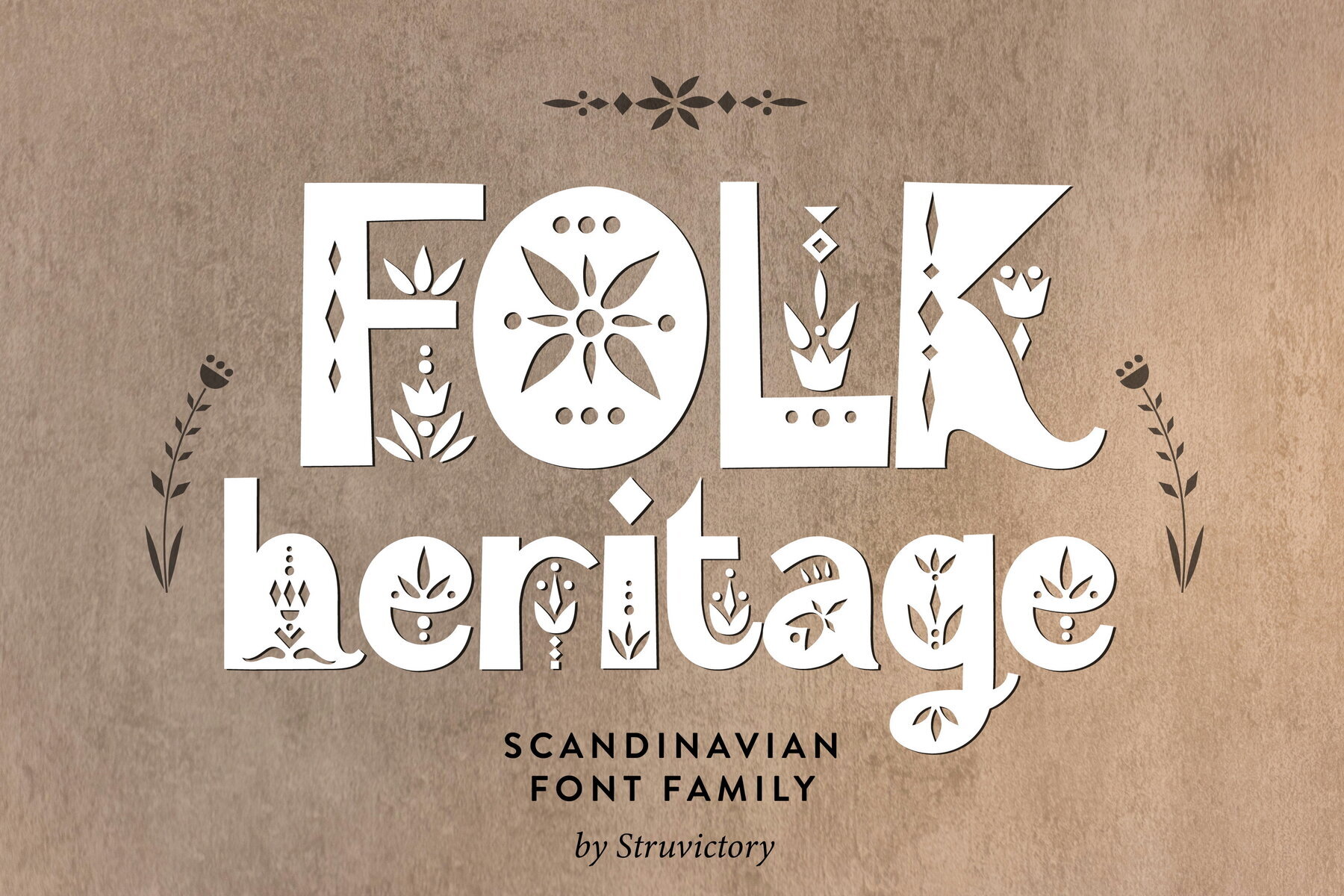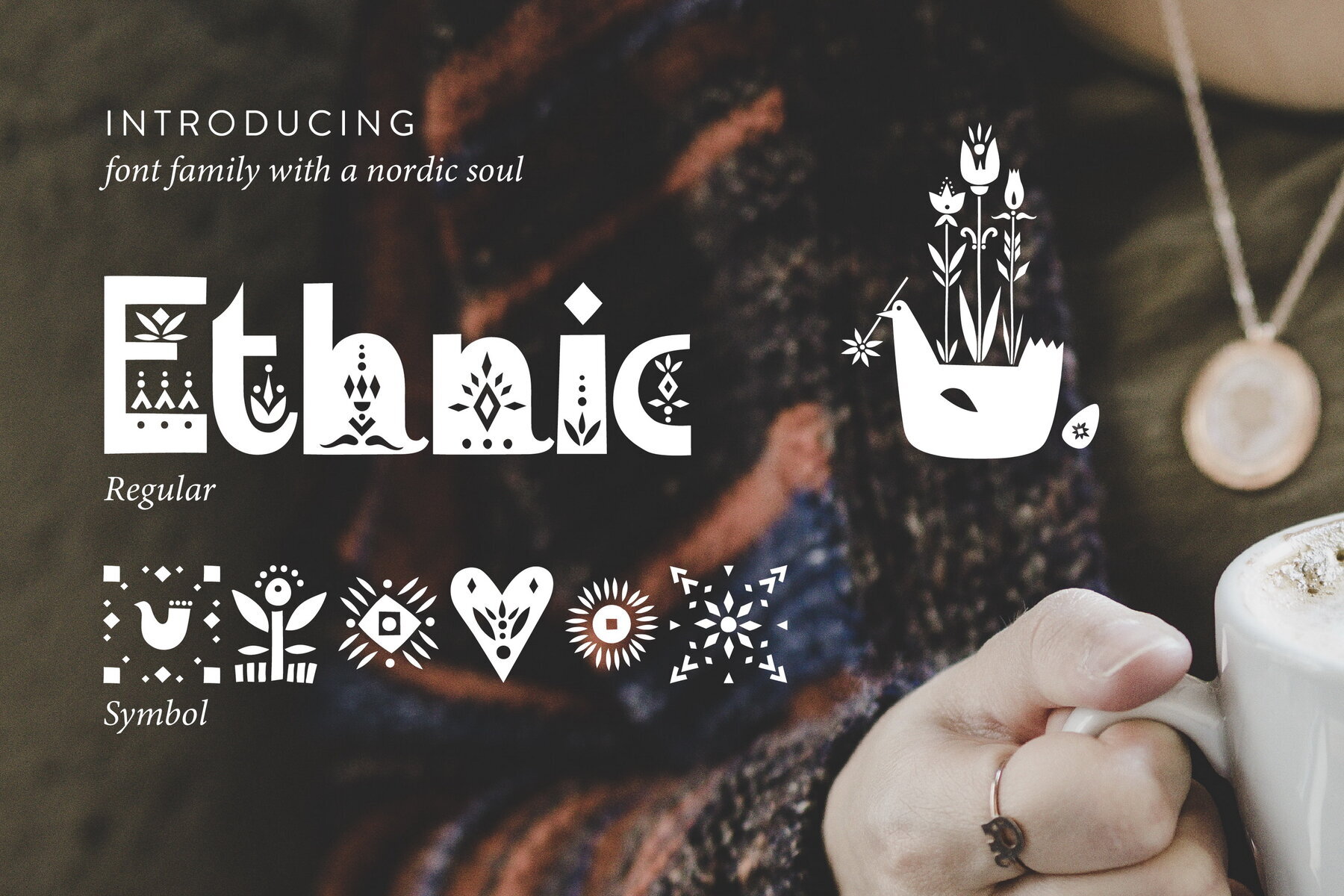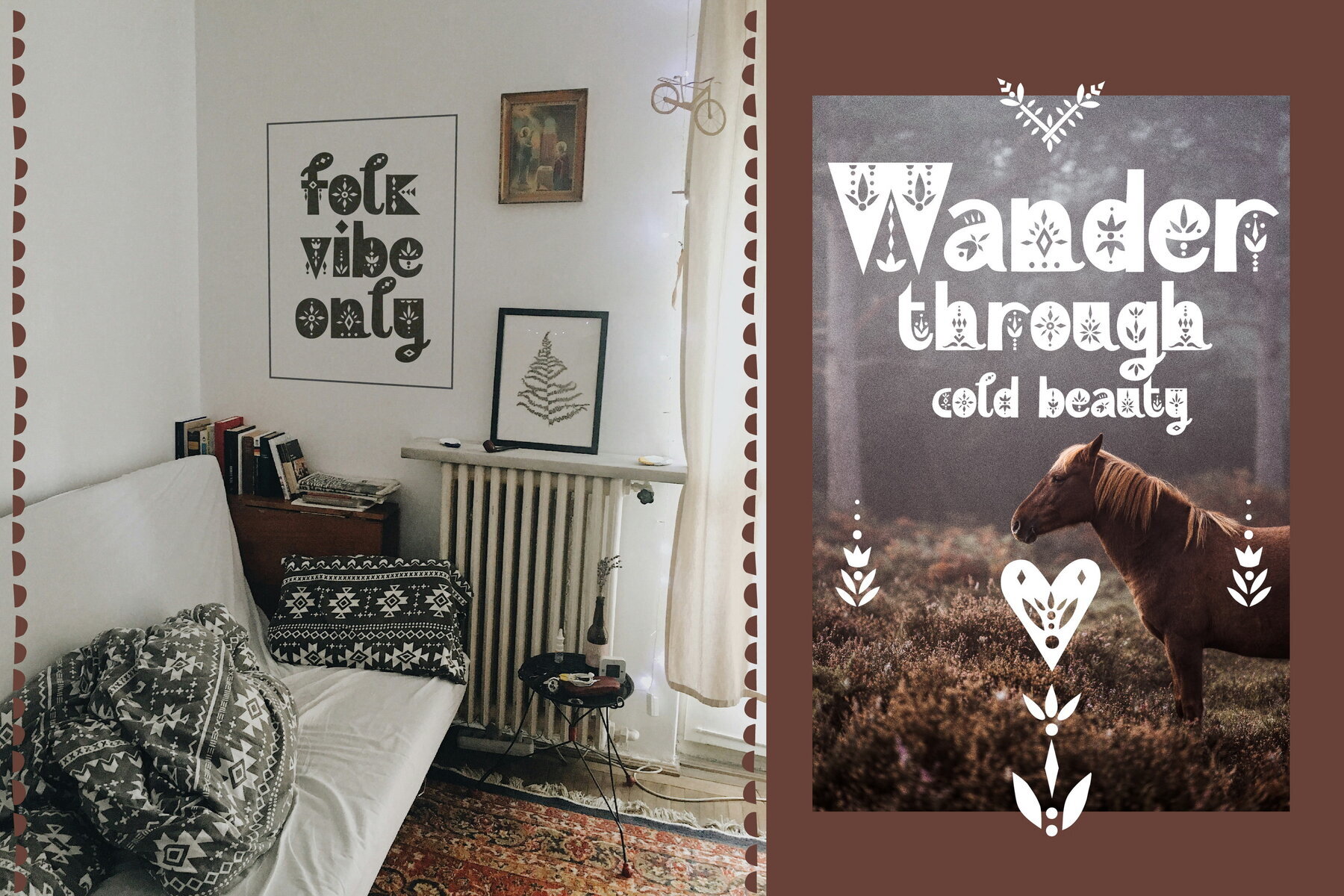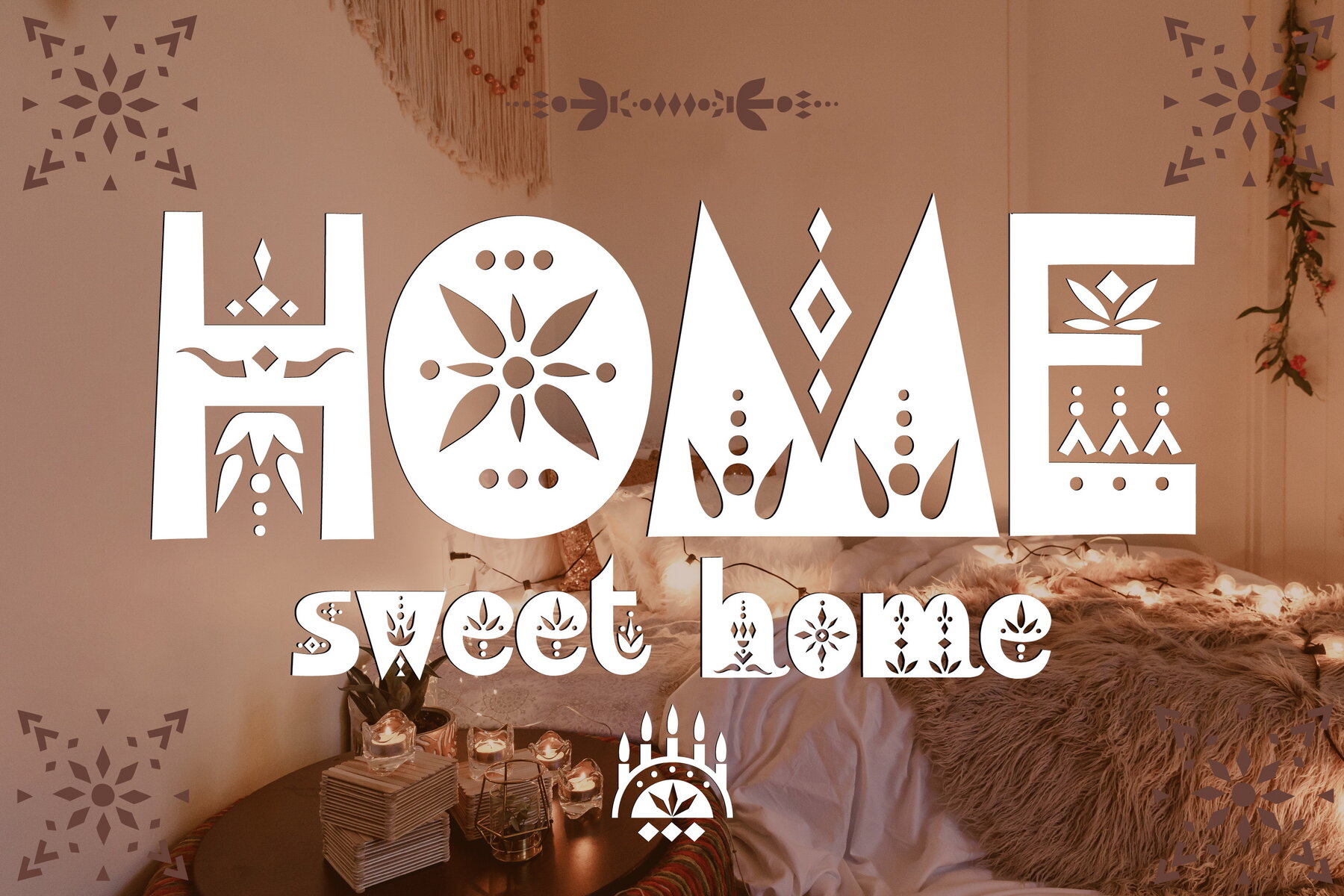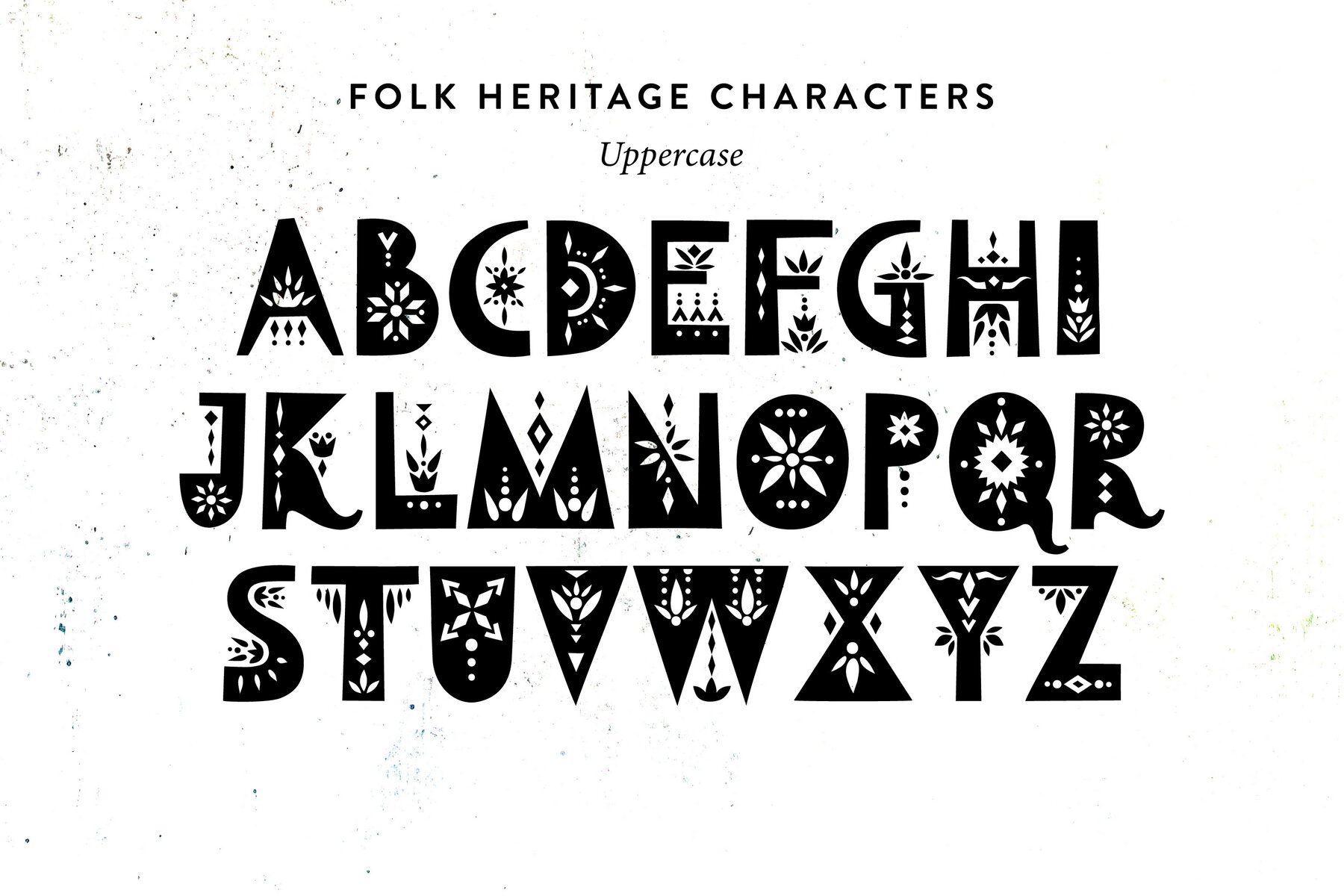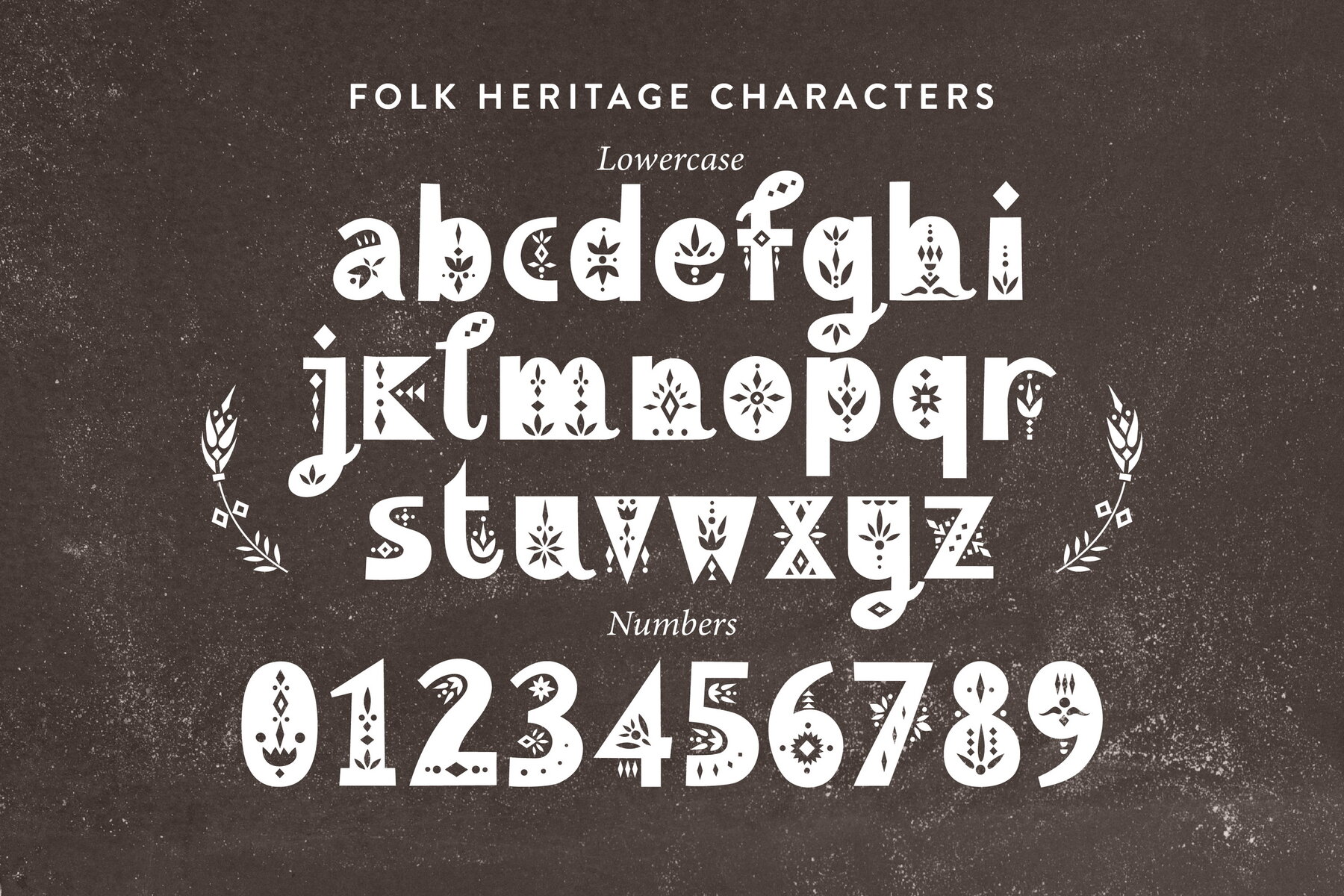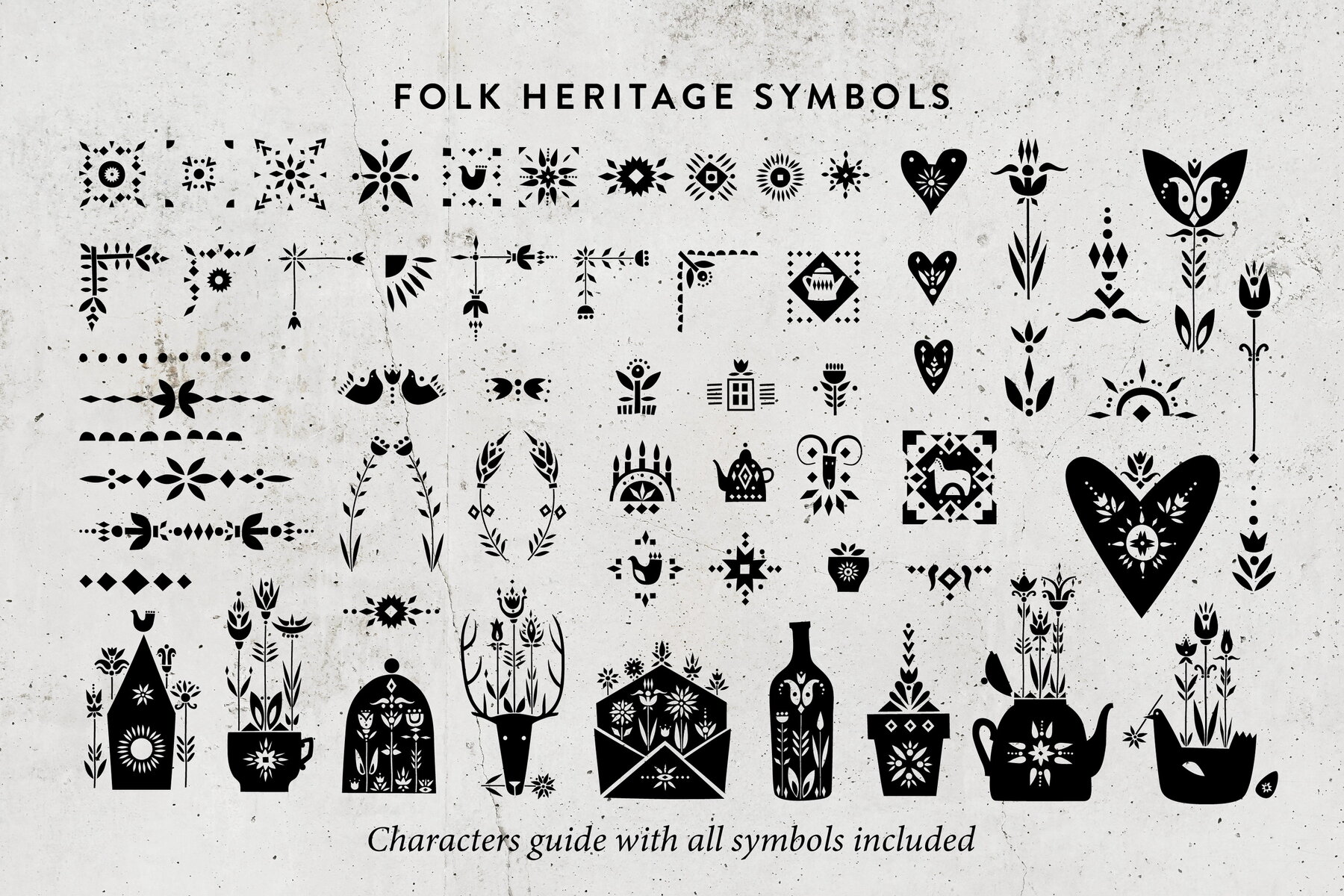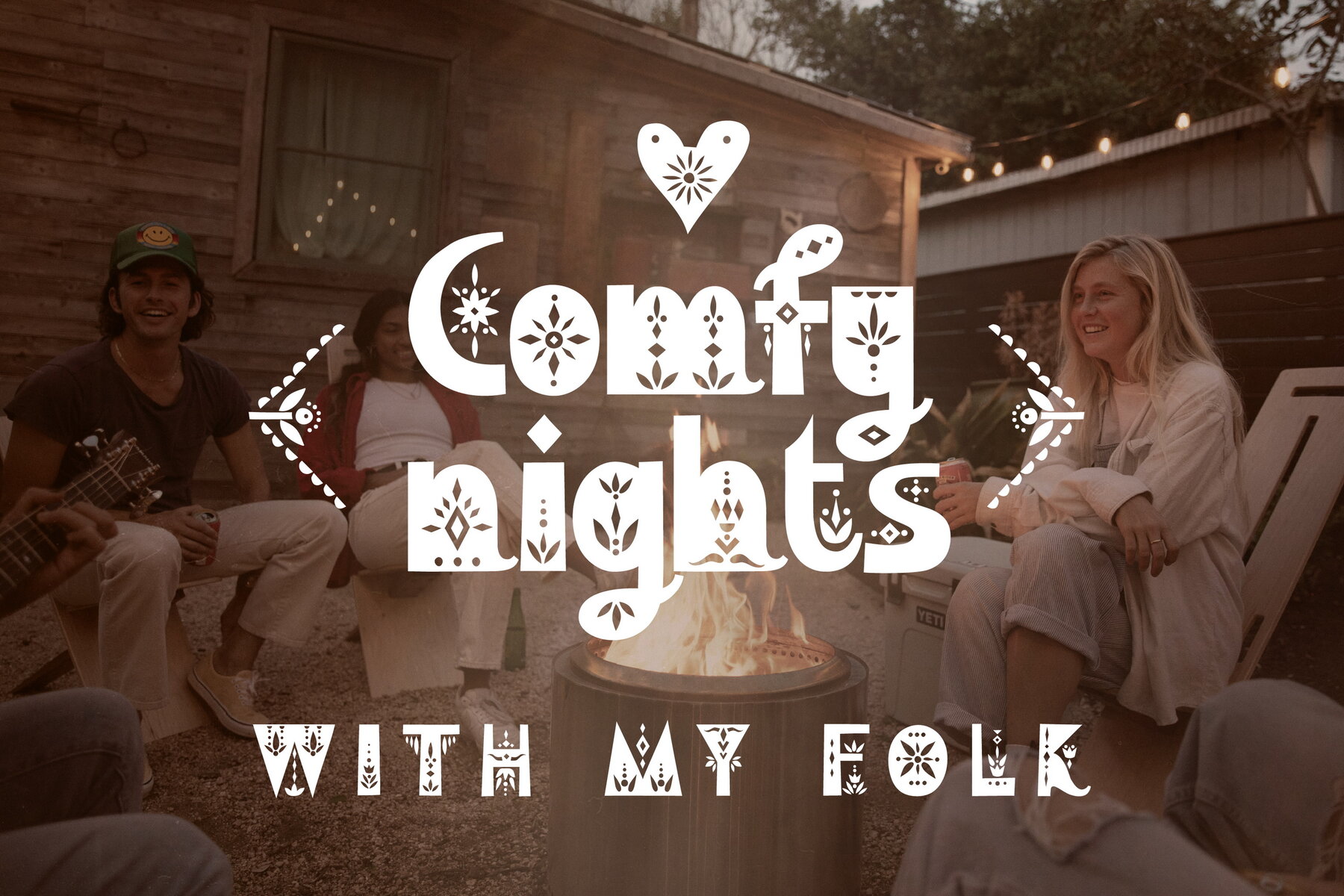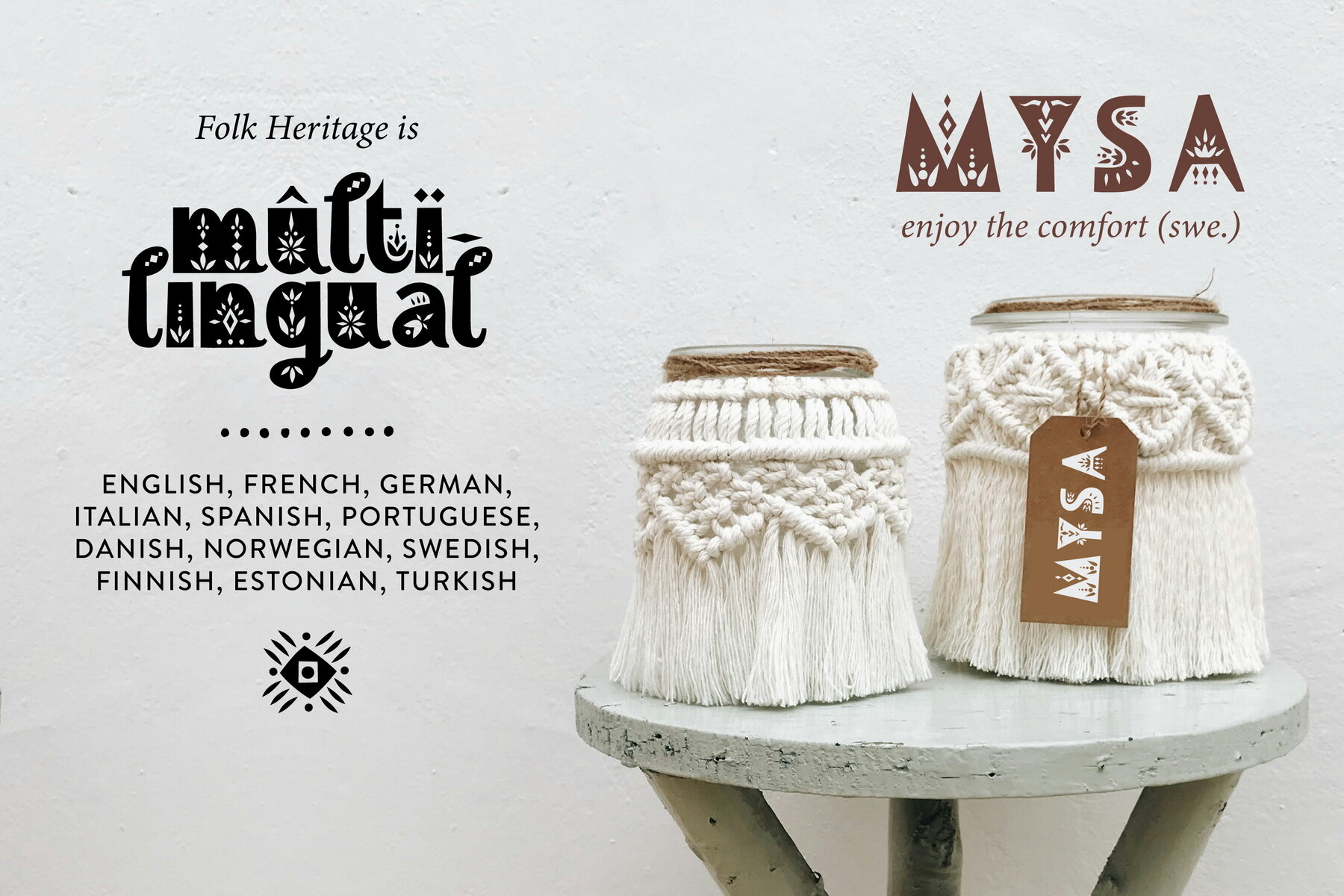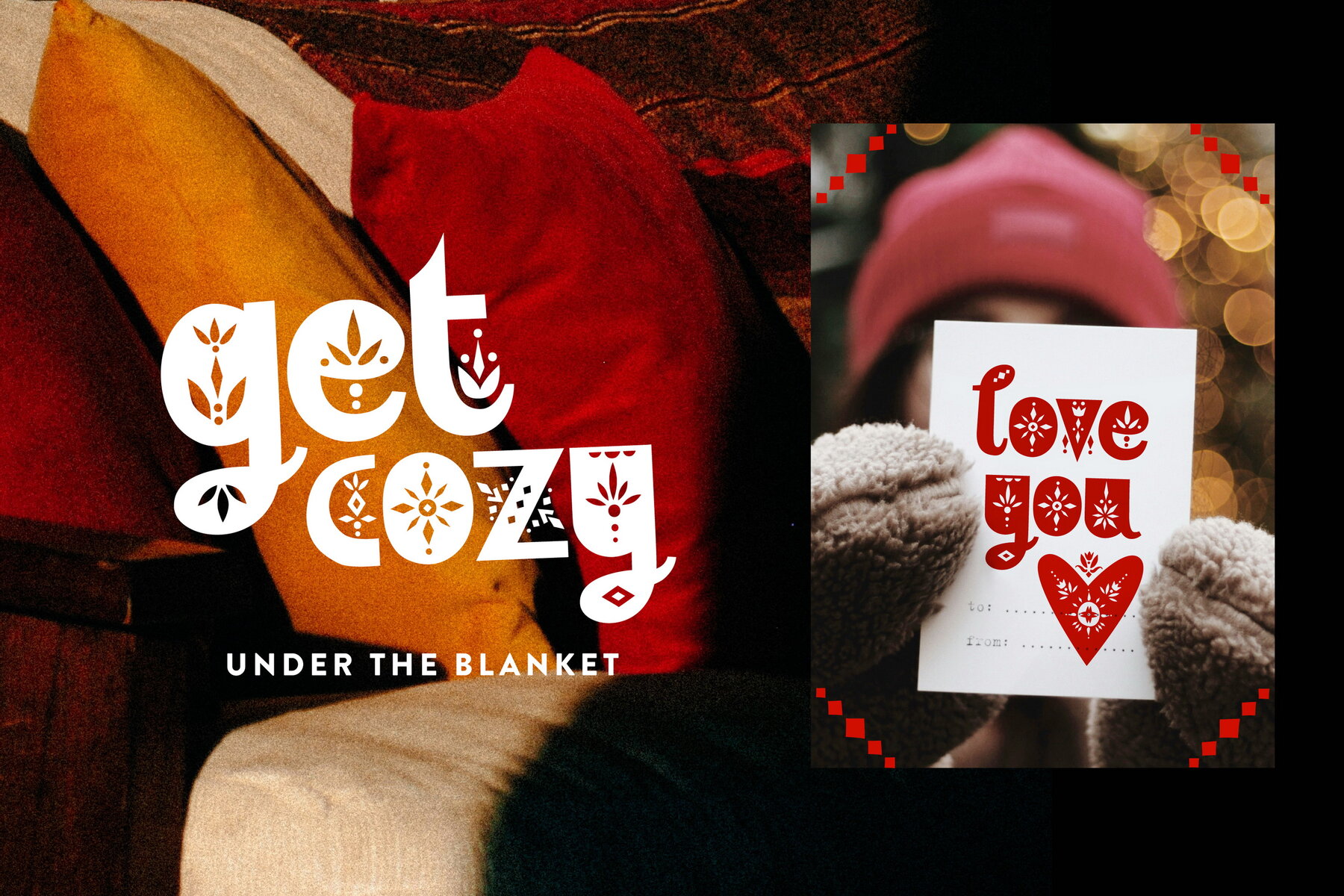
Folk Heritage Font
Folk Heritage
Folk Heritage Symbol
Folk Heritage is a beautifully crafted font family inspired by Scandinavian design, evoking the intricate artistry of wood carving and traditional folk crafts. This unique typeface is available in two styles: a letter version that captures the essence of handcrafted lettering, and a symbol style that features decorative motifs reminiscent of cultural heritage. Perfect for use in rustic branding, artisanal packaging, handcrafted goods, and any project that seeks to celebrate the charm of folk traditions, Folk Heritage brings a warm, inviting touch to any design. Its versatility aligns beautifully with the hygge aesthetic, making it ideal for creating cozy, inviting spaces in invitations, posters, and storytelling that evoke a sense of northern comfort and warmth. The font supports the most popular latin-based languages, you can check the symbol you need by typing a couple of words in the font preview box.